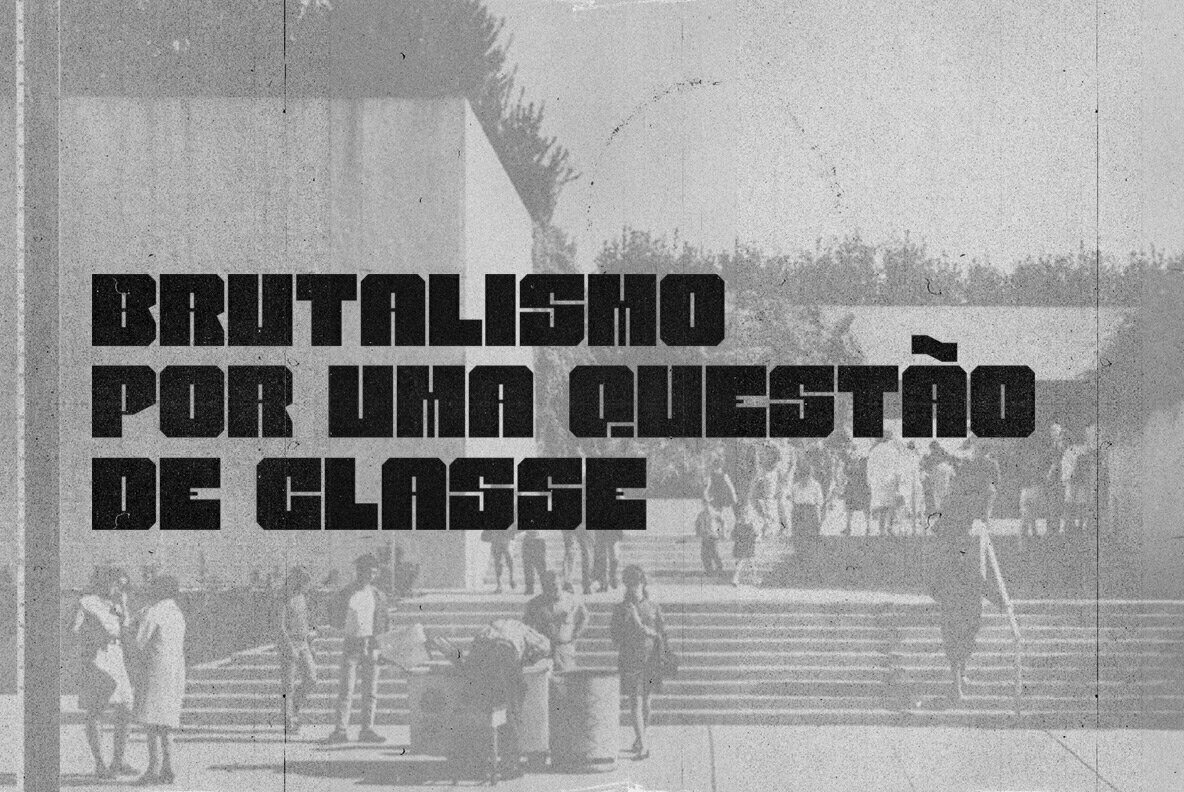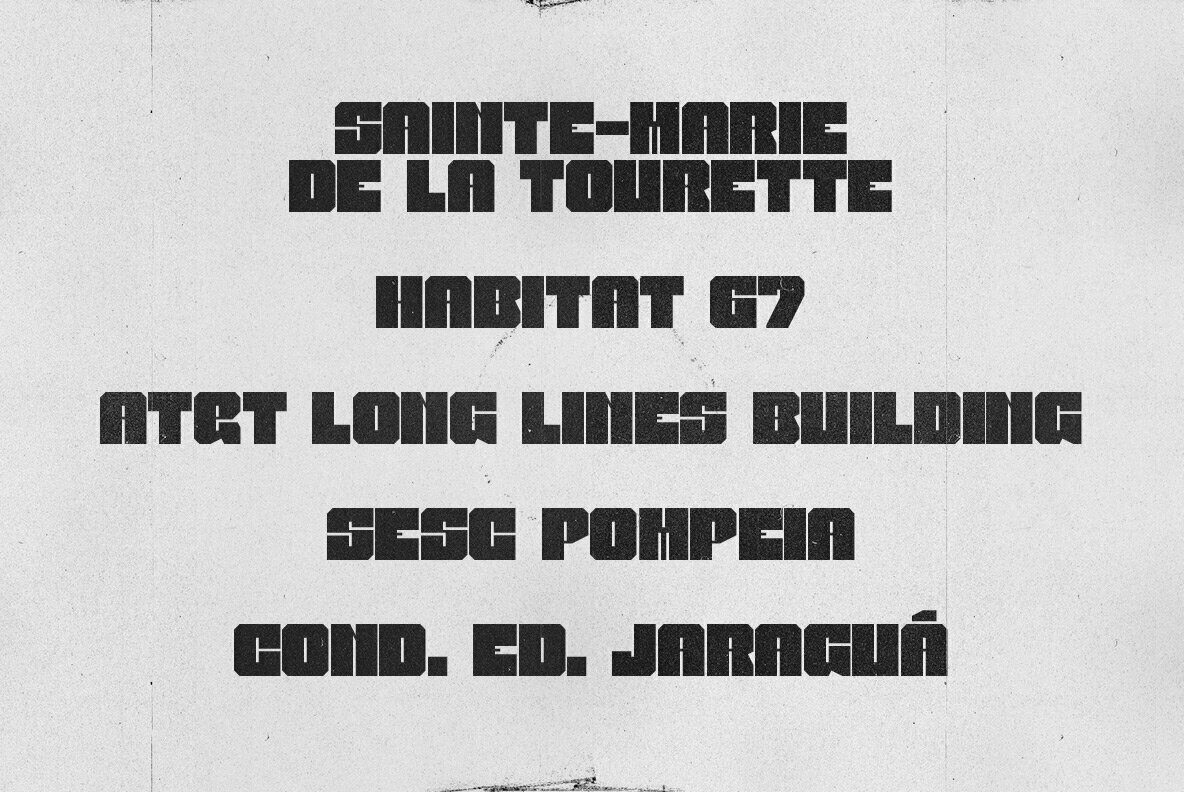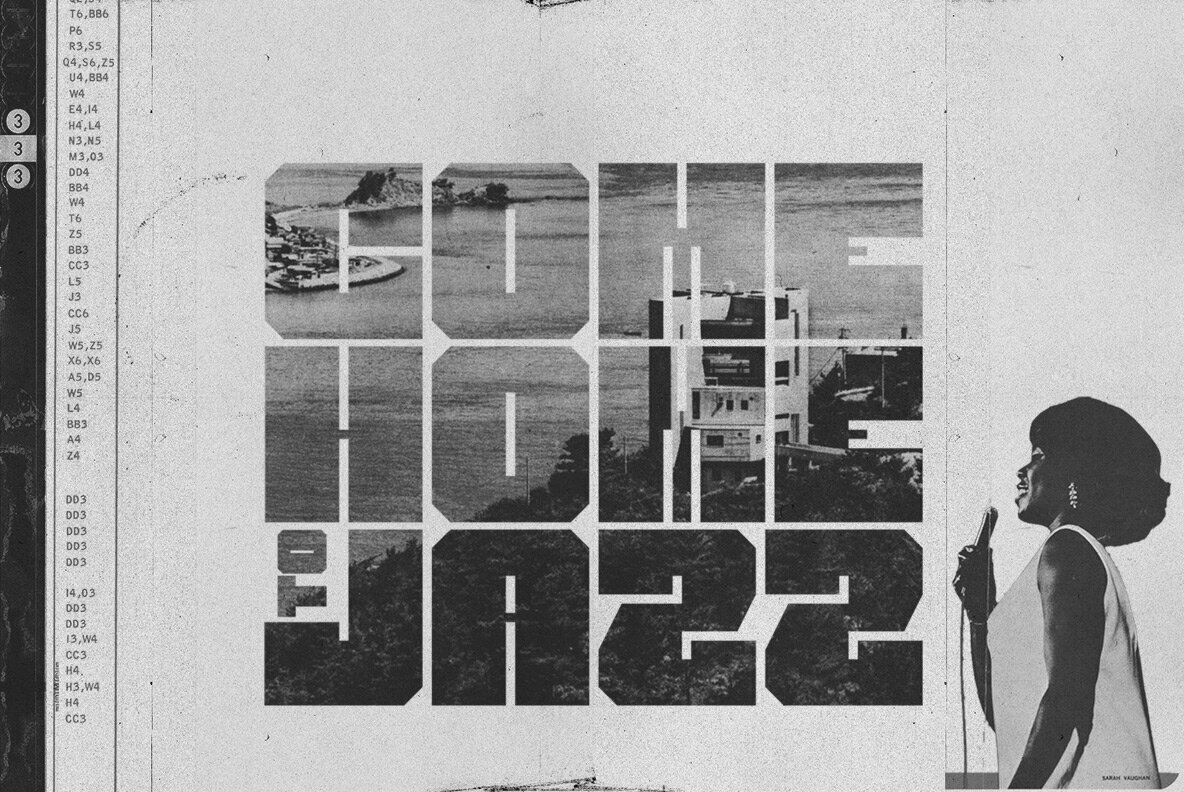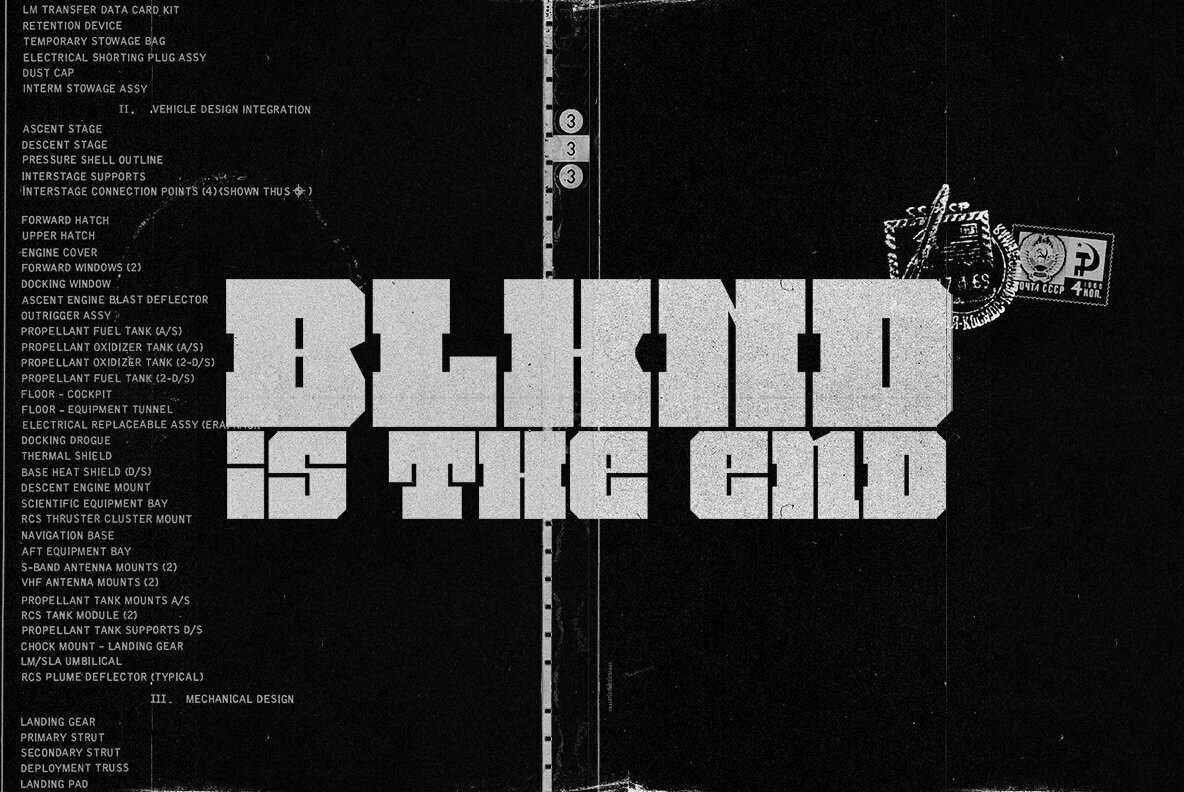
BLKND Font
BLKND Regular
BLKND Sans Regular
BLKND is a heavy display font in 2 styles - Slab Serif & Sans and is perfect for big size purposes like headlines, posters, album covers & much more. It is inspired by Letraset, eccentric designs, brutalist architecture and times of reclusion.